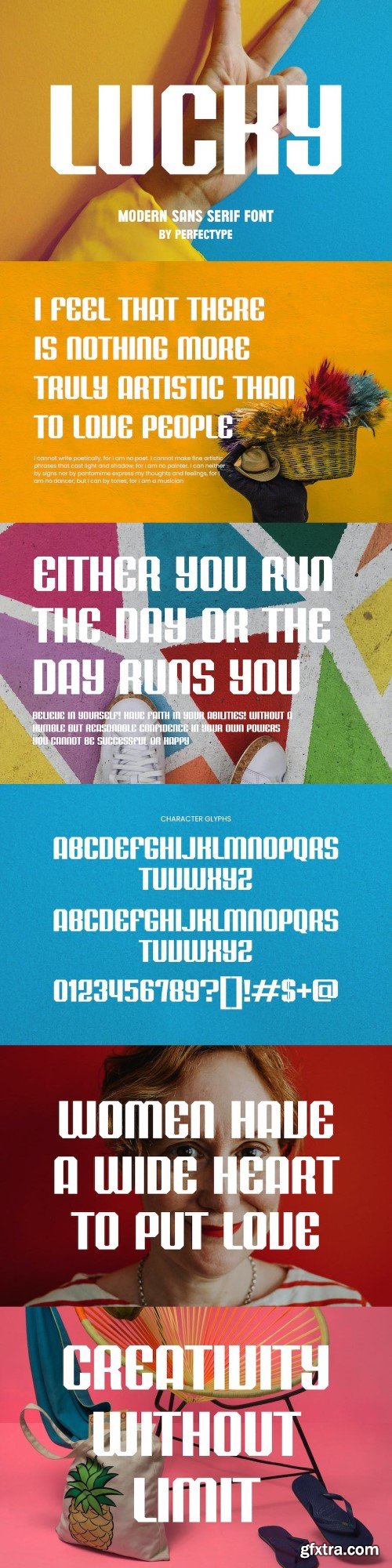
幸运现代无衬线字体类型face
inspired by the famous minimalist logo perfect for the purposes of designing templates, brochures, videos, advertising branding, logos, invitation, layout design, elegant crafting, beauty design and other